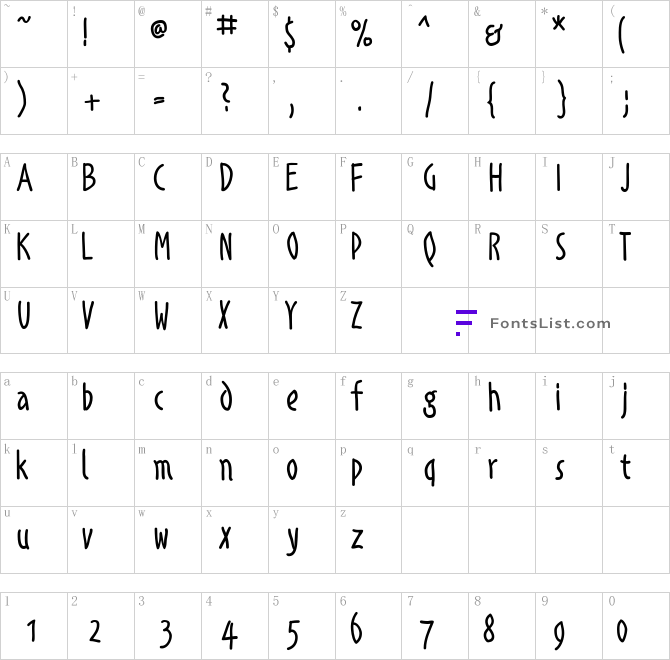
- Font Name:AlphabetismHand
AlphabetismHand.ttf is a very beautiful artistic font, AlphabetismHand.ttf is widely used in the design and printing of various books and pictures,AlphabetismHand.ttf has a strong visual impact,AlphabetismHand.ttf is a commonly used font in newspapers, magazines and books, and is used in posters, e-commerce Poster design, store design, logo design, font design and other fields.AlphabetismHand.